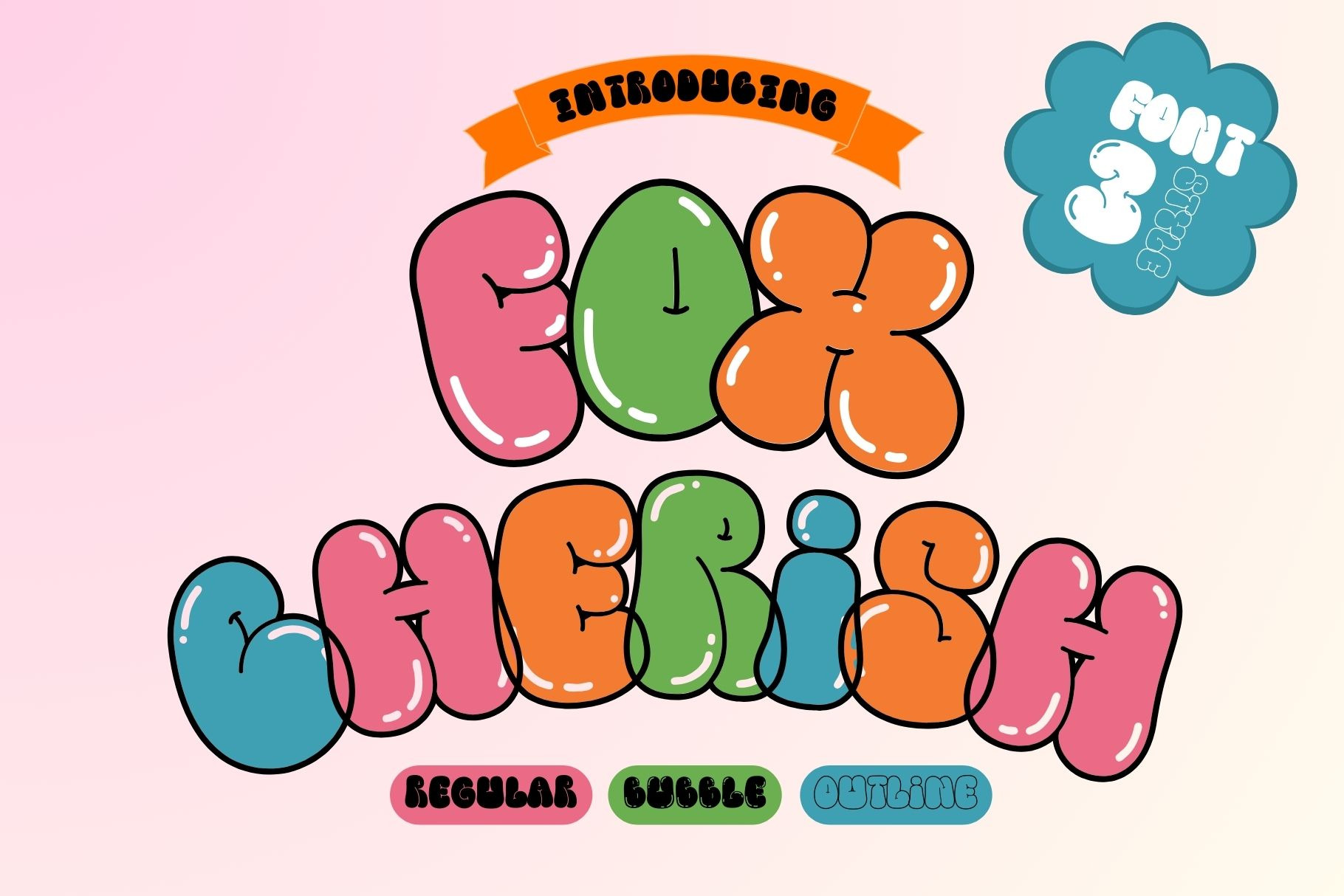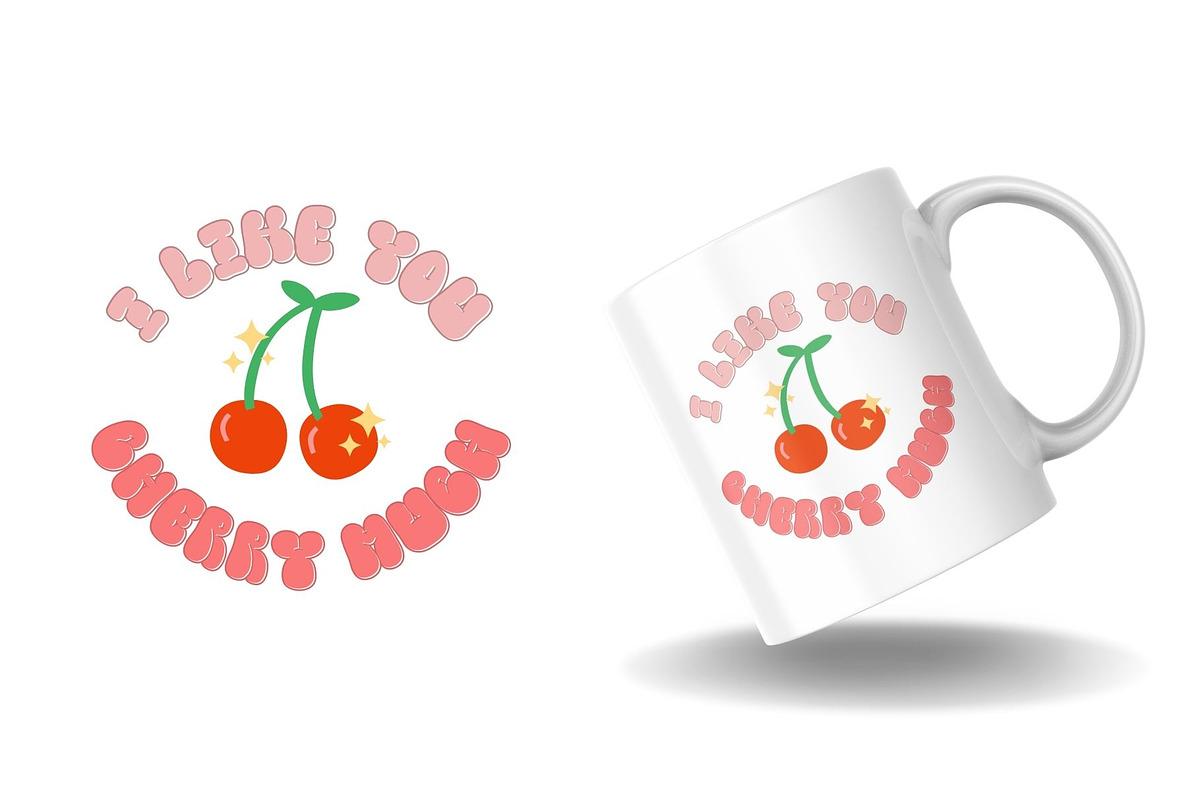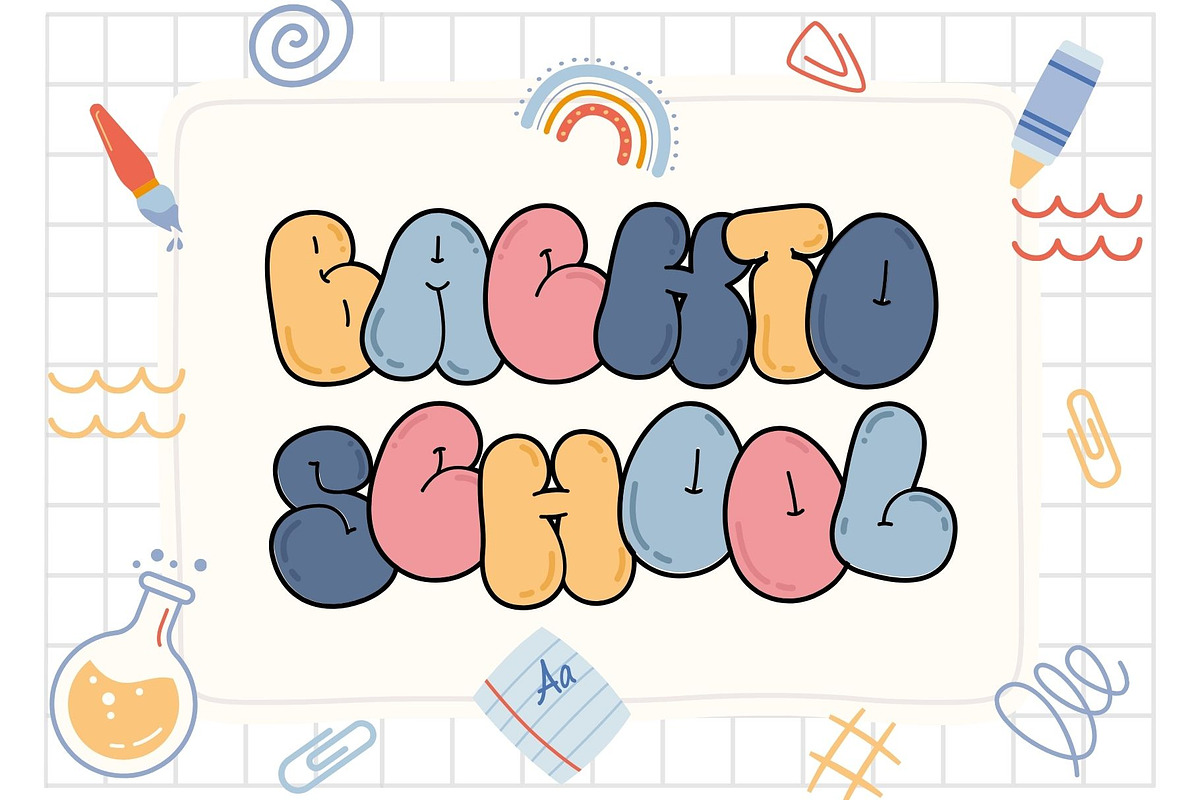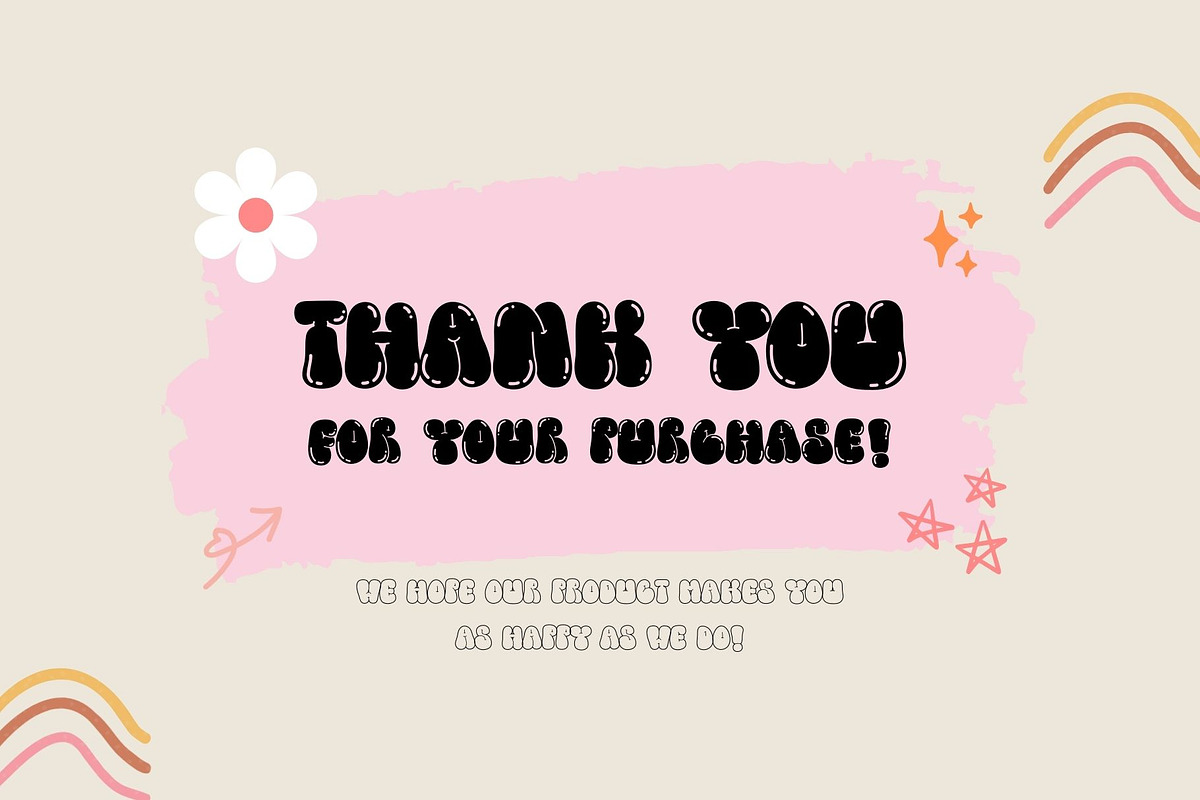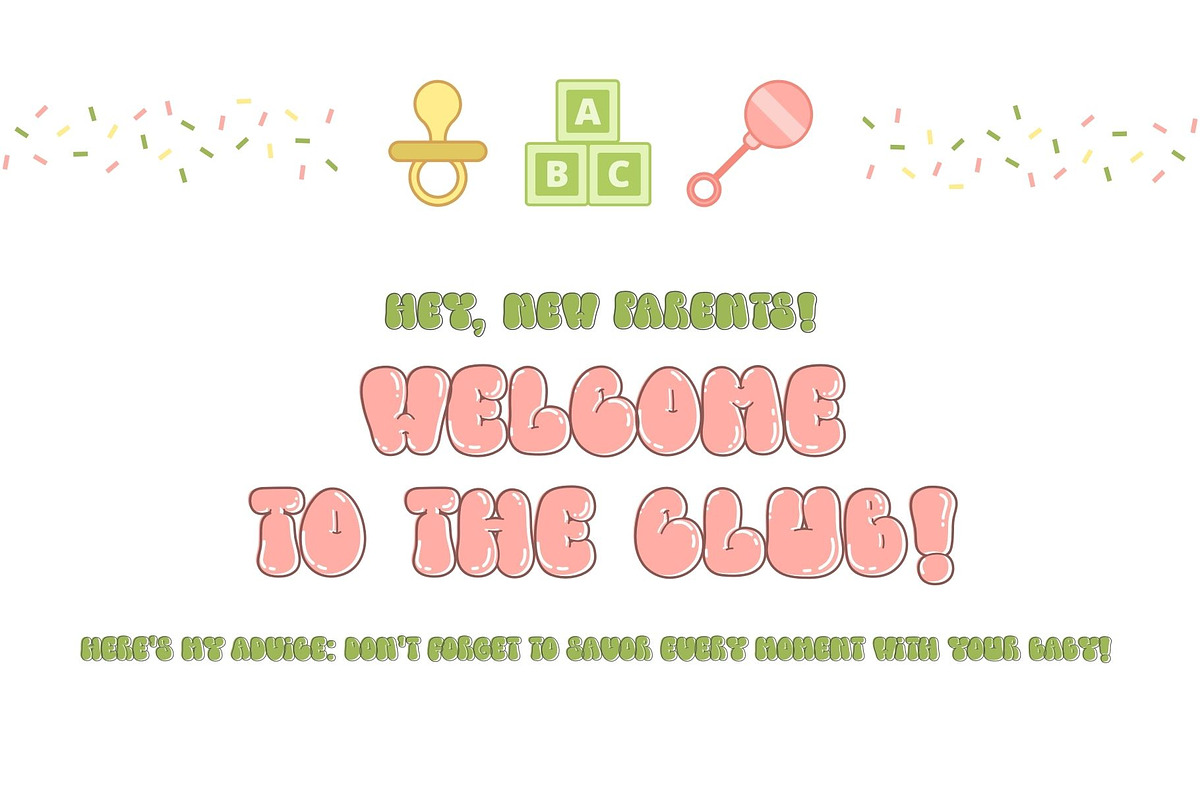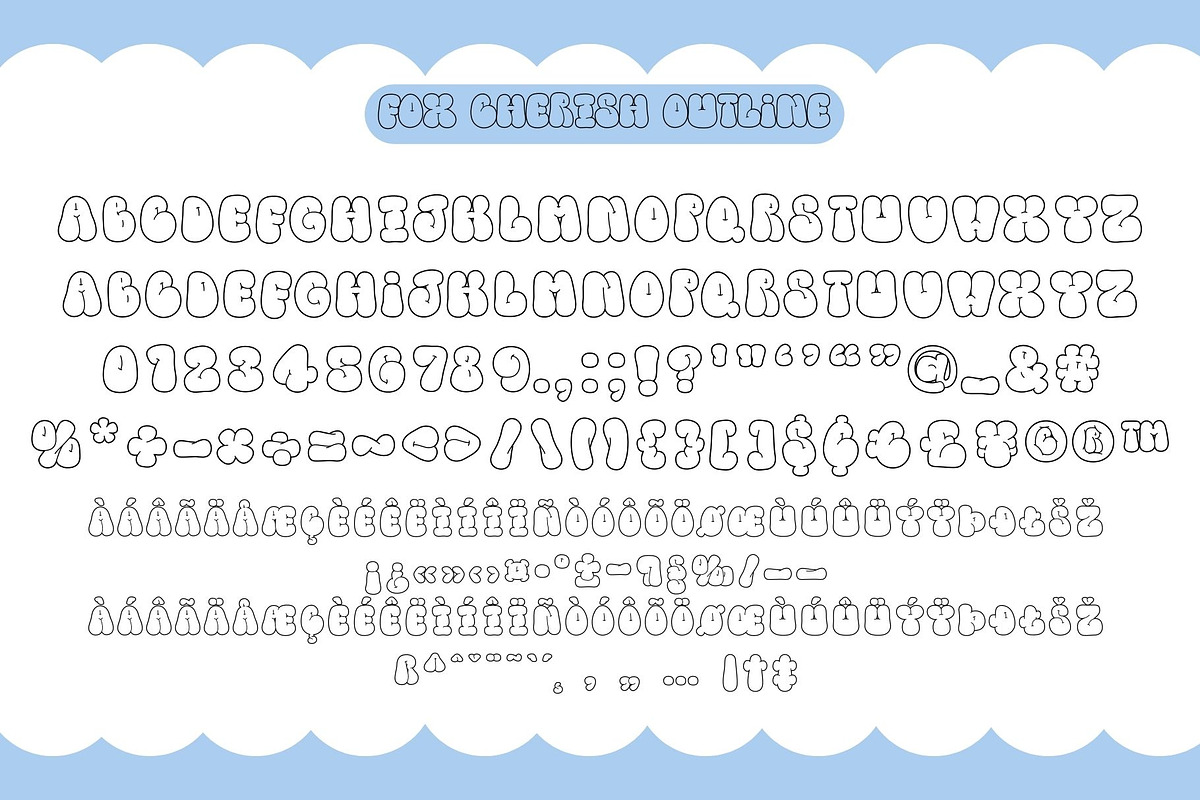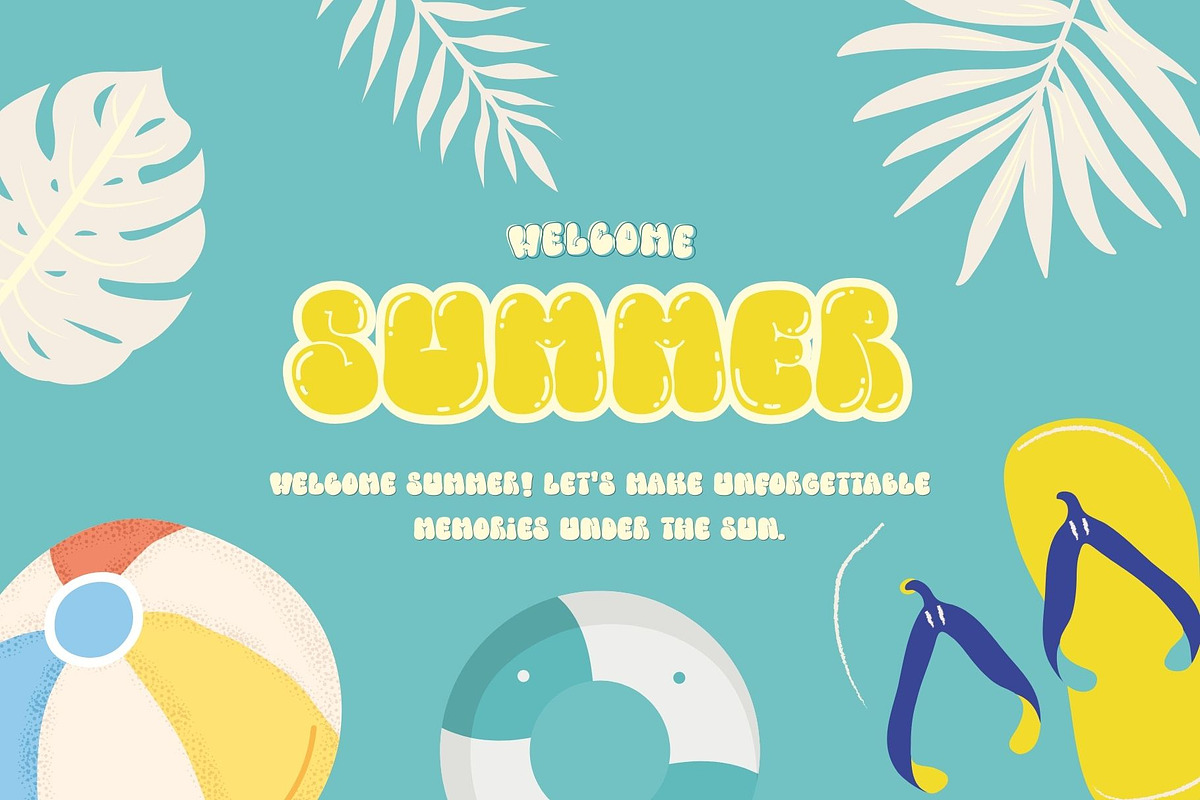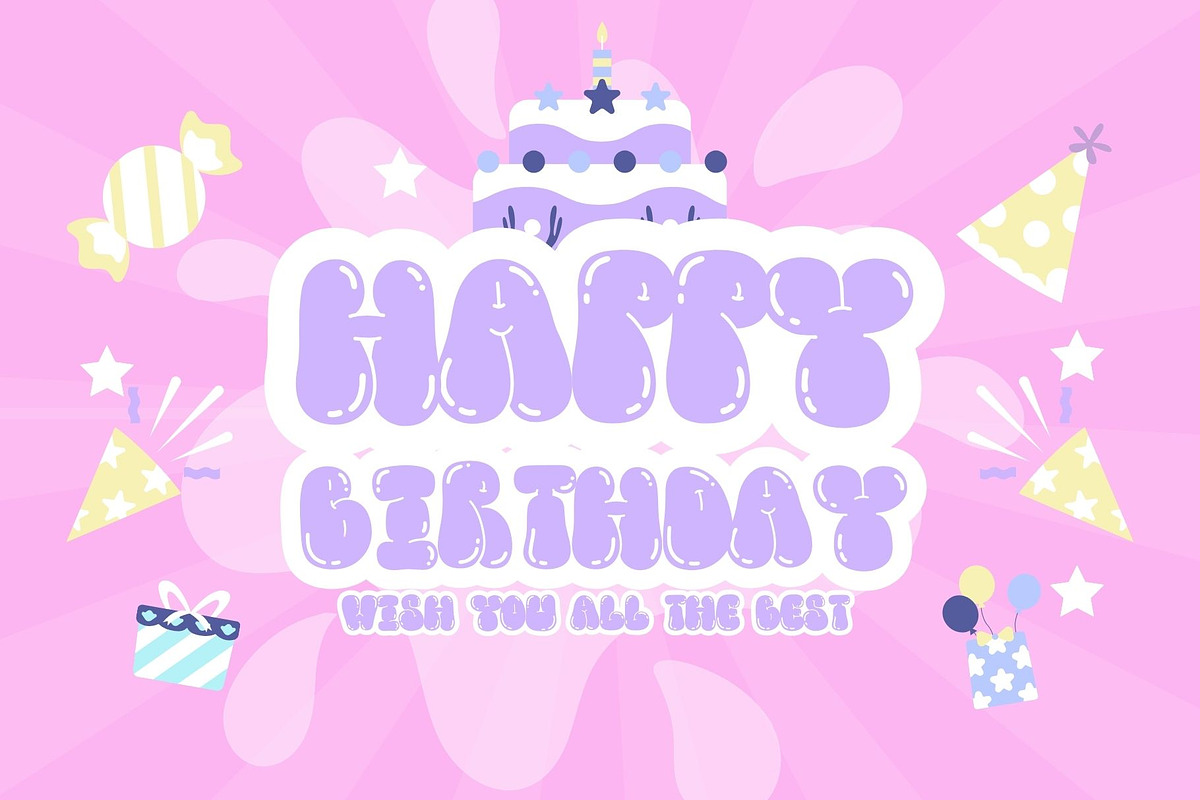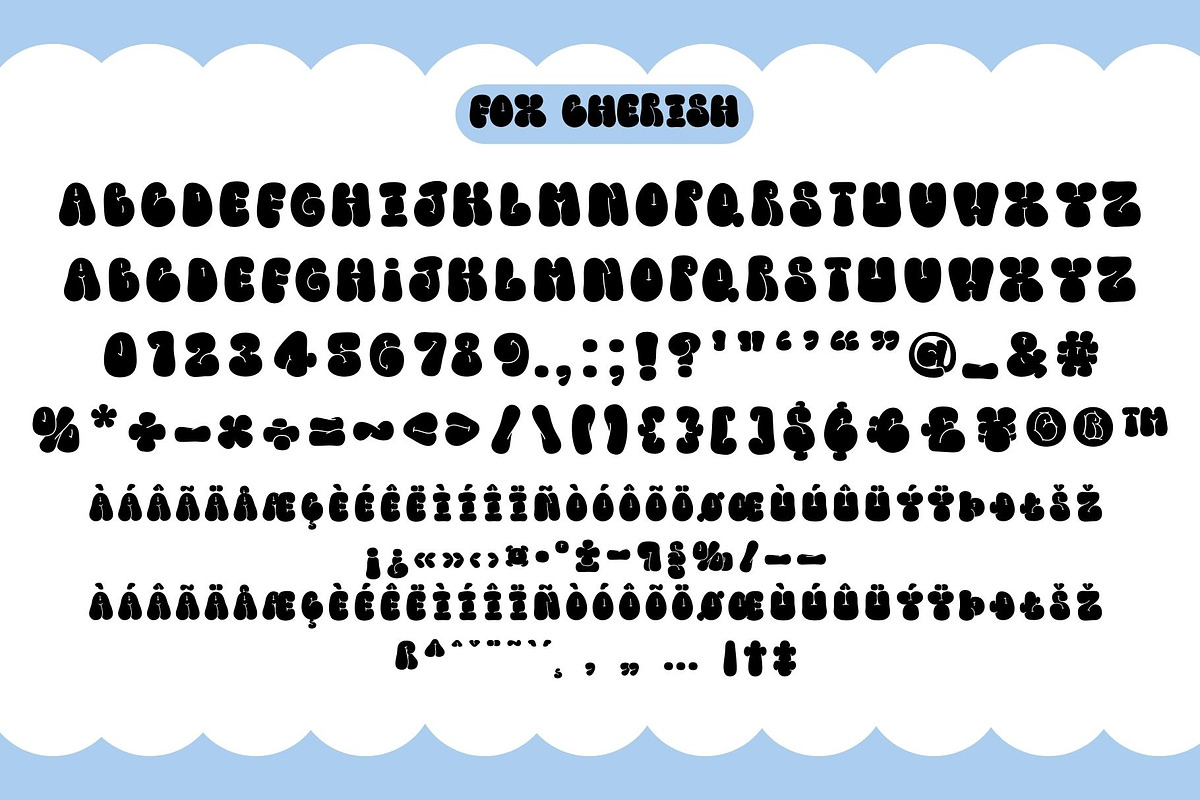
Fox Cherish 3 Fonts Style
Fox Cherish is a 3 style font that cool cute and playful display font that adds a captivating and energetic touch to your designs. With its fun and funky letterforms, this font is perfect for adding a touch of personality to any design project. Whether you’re creating t-shirts, stickers, children’s book covers, social media posts, or anything in between, Fox Cherish font is the perfect choice for making your designs stand out.